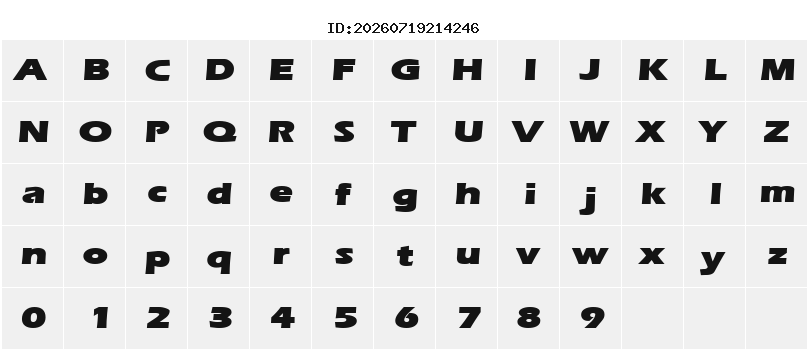
About ErgoeMildBlackExpanded.ttf
ErgoeMildBlackExpanded.ttf is a modern, elegant sans-serif font designed for ultimate readability and visual harmony. Perfect for branding, headlines, web design, and print materials.